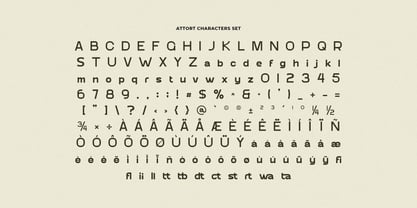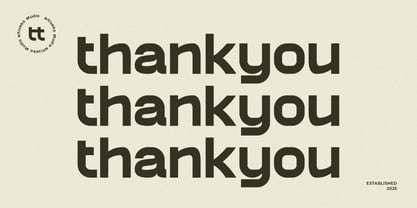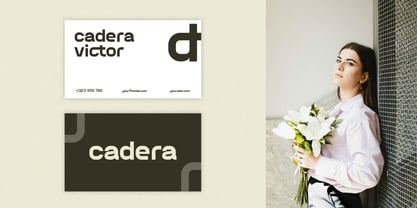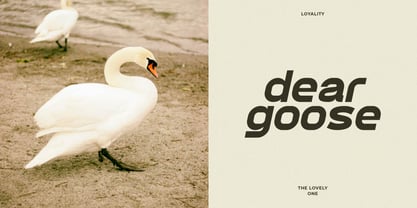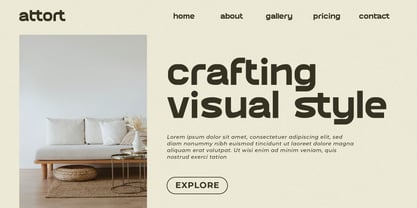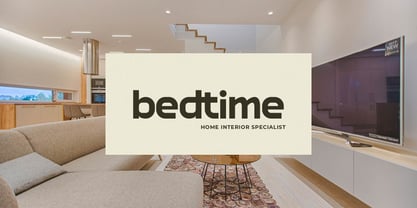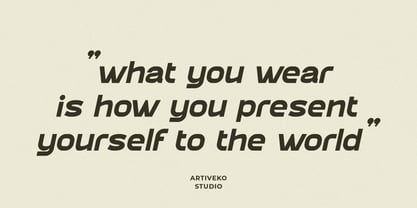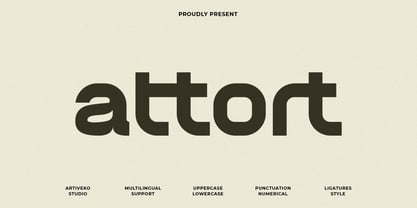
Attort
Die Schriftfamilie Attort wurde von Iwan Alwan entworfen und von Artiveko veröffentlicht. Attort enthält 2 Stile und Familienpaketoptionen. Mehr über diese Familie
Attort is a bold and versatile sans serif typeface crafted with precision for modern branding. With its clean geometric shapes, sharp edges, and well-balanced proportions, Attort exudes confidence and professionalism — making it the perfect choice for standout logos, corporate identities, packaging, posters, and digital content.
Designed with simplicity in mind, Attort maintains excellent readability across various applications. Its minimalist yet strong character makes it ideal for fashion brands, tech startups, lifestyle products, or editorial projects that demand a sleek, contemporary presence.
The font includes uppercase and lowercase letters, numerals, punctuation, multilingual support, and carefully adjusted kerning to ensure polished results in every design. Its modern style pairs seamlessly with script or serif typefaces, allowing endless creative possibilities.
Bring impact and clarity to your designs with Attort — a modern sans logo font that blends strength, elegance, and timeless appeal.